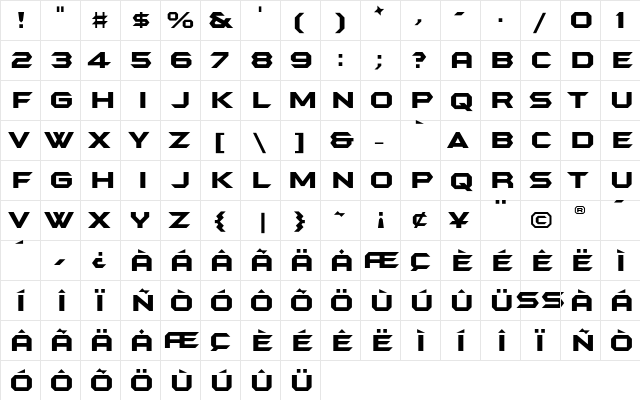
BatmanForever1 Regular
Design Context for BatmanForever1 Typeface
BatmanForever1 is a composed and adaptable typeface that performs quietly and consistently across a wide range of design contexts.